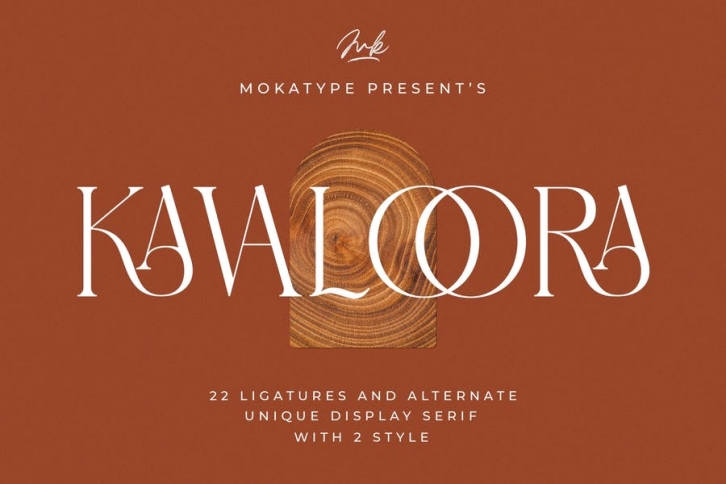
Kavaloora - Stylish Ligatures FONT Download
Hello Introducing, Kavaloora - Stylish Ligatures Serif is an elegant, unique font that uses ligatures to smoothly link letters. inspired by the famous minimalist logo, perfect for the purposes of designing templates, brochures, videos, advertising branding, logos and more. Perfect for adding a unique twist to word-mark logos, monograms or pull quotes. Kavaloora has 2 style Regular and Line, 22 ligatures and 8 Alternate Glyphs as well as numbers and punctuation making it super fantastic.
• Standard glyphs
• Alternates
• International Accent